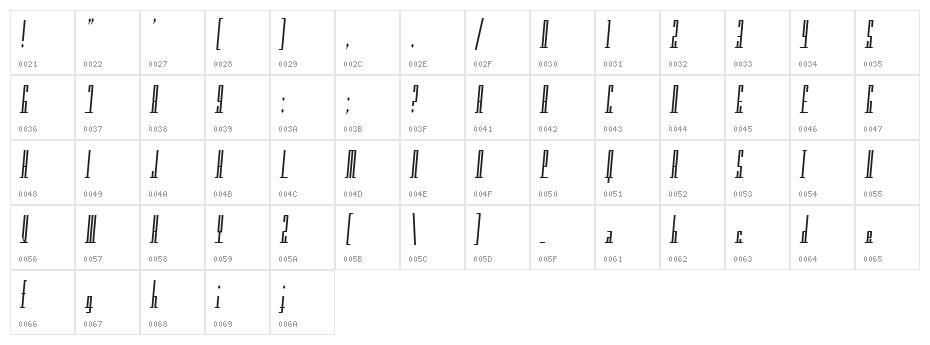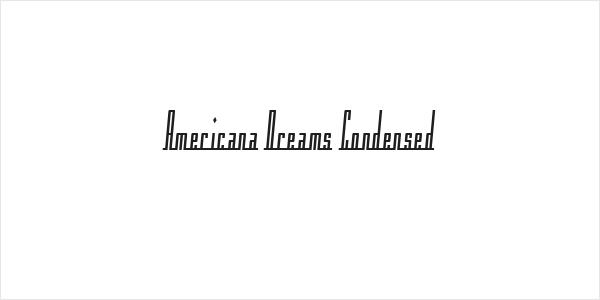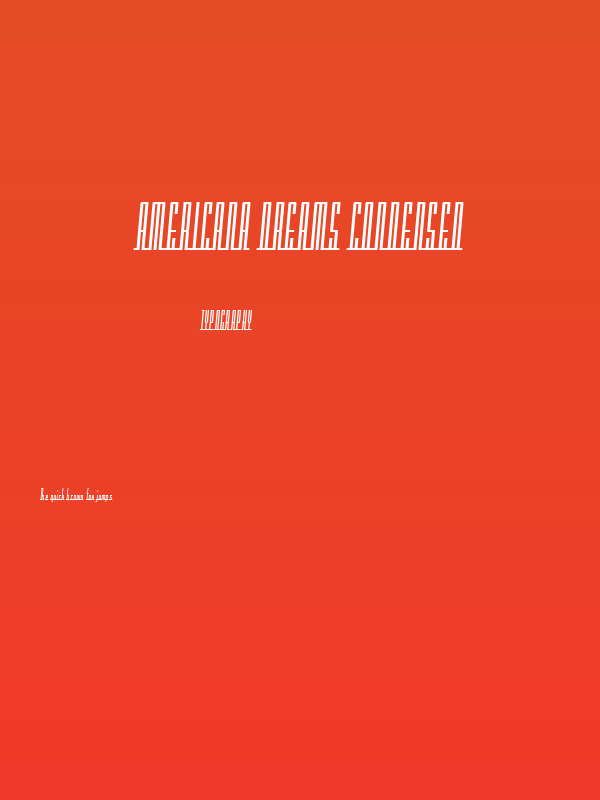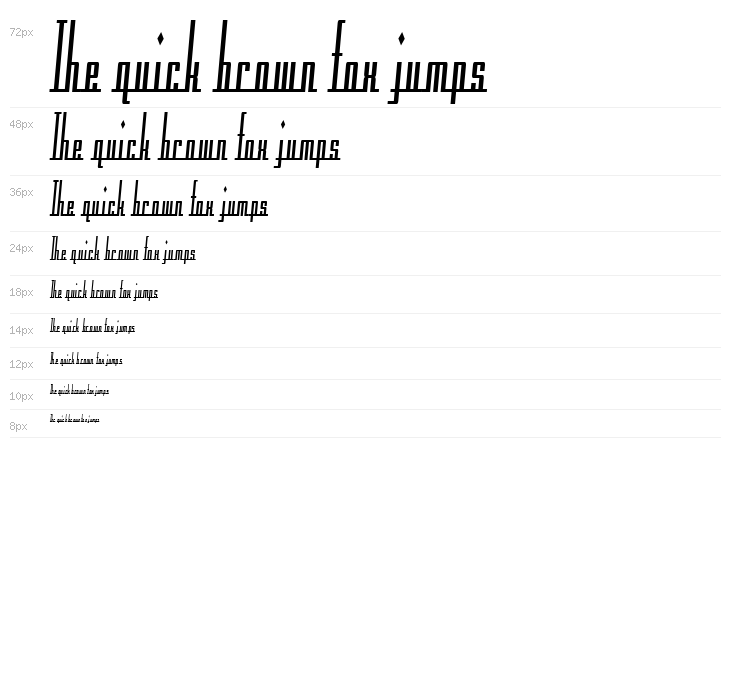
Americana Dreams Condensed Font
Americana Dreams Condensed Description
This font features a condensed and elongated style with a modern flair. The uppercase letters are tall and narrow, creating a sleek and sophisticated appearance. The lowercase letters maintain the same condensed form, ensuring consistency throughout the typeface. The numerals are similarly styled, adding to the cohesive look. The font's sharp angles and clean lines give it a contemporary feel, while the uniform stroke width provides a sense of balance and harmony. Special characters are designed to match the overall aesthetic, making this font suitable for a variety of design applications.
| Proposed Projects | Ideal for modern branding, editorial design, posters, and digital media where a contemporary and stylish look is desired. |